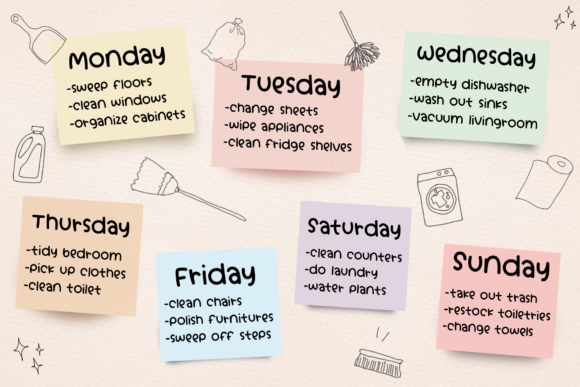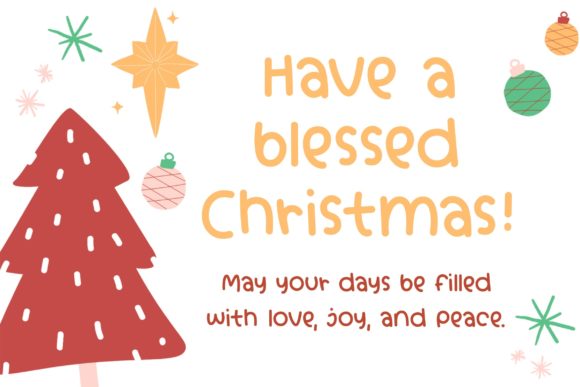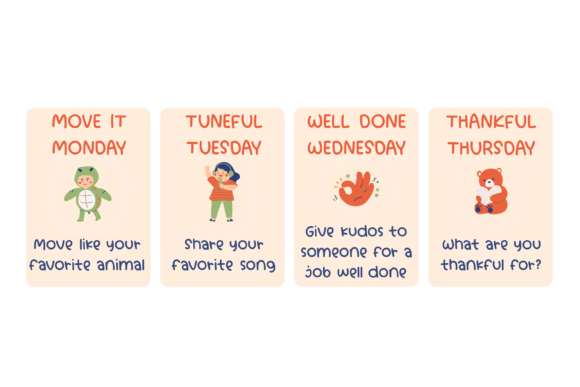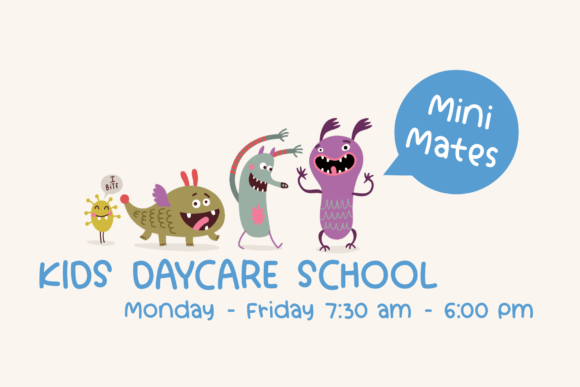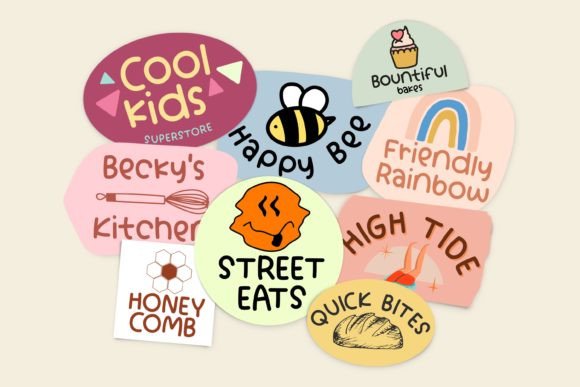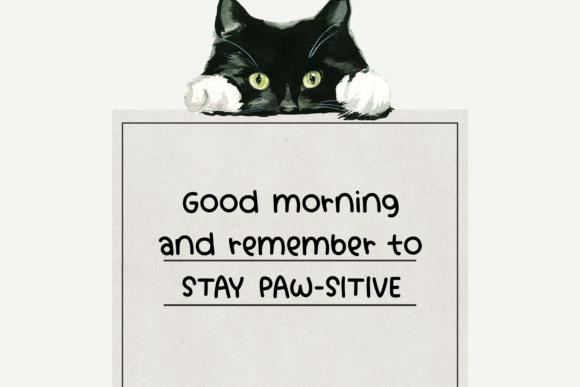
Introducing Happy Friday Font: The Perfect Addition to Your Design Arsenal
Are you tired of using the same old fonts for your designs? Look no further! Happy Friday Font is a delightful and simple lettered handwritten font that’s sure to bring a smile to your face. This charming font is perfect for creating eye-catching chalkboard quotes, teaching materials, and children’s themed designs that are both fun and engaging.
What Makes Happy Friday Font So Special?
Happy Friday Font is a cute and simple lettered handwritten font that’s designed to add a touch of whimsy to your designs. Its playful and carefree vibe makes it perfect for a variety of projects, from educational materials to social media graphics. Whether you’re a designer, teacher, or crafter, this font is sure to become a favorite in your collection.
Perfect for Children’s Themed Designs
One of the standout features of Happy Friday Font is its ability to add a touch of childhood magic to your designs. When paired with bright colors, this font creates a visually appealing combination that’s sure to delight kids and adults alike. Whether you’re creating posters, flyers, or worksheets, Happy Friday Font is the perfect choice for children’s themed designs.
Why Designers and Crafters Love Happy Friday Font
So, what makes Happy Friday Font a must-have for designers and crafters? Here are just a few reasons:
- Unique and Playful Style: Happy Friday Font has a one-of-a-kind, hand-drawn style that’s sure to make your designs stand out from the crowd.
- Easy to Read: Despite its playful nature, Happy Friday Font is surprisingly easy to read, making it perfect for use in educational materials and other designs where legibility is key.
- Versatile: Happy Friday Font can be used for a wide range of projects, from digital designs to print materials.
- Fun and Engaging: This font is sure to add a touch of fun and personality to your designs, making them more engaging and shareable.
How to Use Happy Friday Font in Your Designs
Using Happy Friday Font in your designs is easy! Here are a few ideas to get you started:
- Chalkboard Quotes: Use Happy Friday Font to create eye-catching chalkboard quotes that are perfect for social media, blogs, or even physical chalkboards.
- Teaching Materials: Add a touch of whimsy to your teaching materials, such as worksheets, posters, and lesson plans.
- Children’s Party Decor: Use Happy Friday Font to create fun and colorful party decor, such as invitations, banners, and signs.
- Social Media Graphics: Add a playful touch to your social media graphics, such as Facebook posts, Instagram stories, and Twitter headers.
Tips for Pairing Happy Friday Font with Other Design Elements
To get the most out of Happy Friday Font, try pairing it with other design elements that complement its playful style. Here are a few tips:
- Bright Colors: Pair Happy Friday Font with bright, bold colors to create a visually appealing combination.
- Simple Shapes: Use simple shapes, such as circles, squares, and triangles, to add a touch of playfulness to your designs.
- Textures: Add texture to your designs with elements like glitter, polka dots, or stripes.
| Font Name | Happy Friday Font |
| Author | Jyllyco |
In conclusion, Happy Friday Font is a delightful and versatile font that’s perfect for designers, teachers, and crafters. Its playful and carefree vibe makes it ideal for children’s themed designs, chalkboard quotes, and teaching materials. With its easy-to-read style and unique personality, Happy Friday Font is sure to become a favorite in your design arsenal.